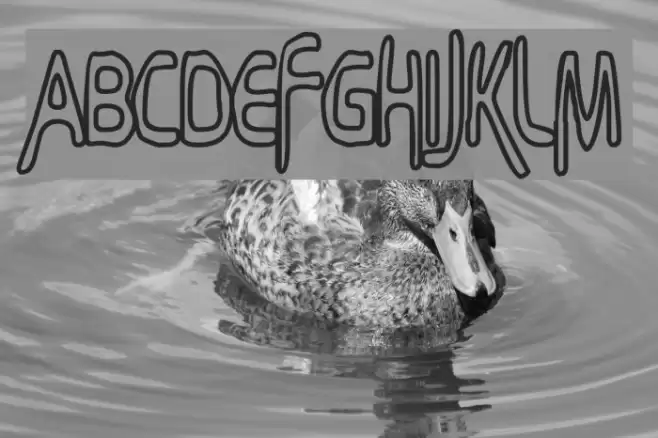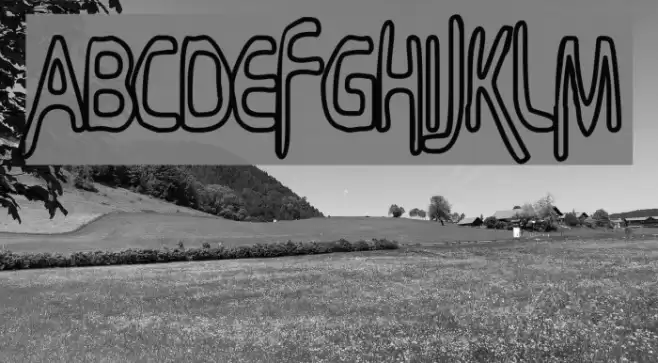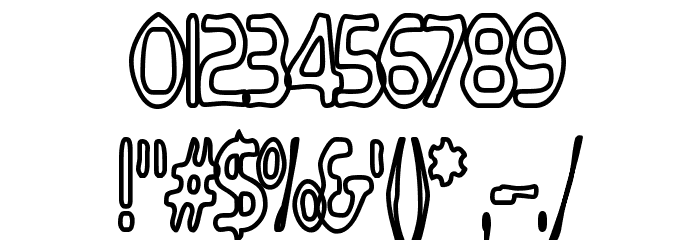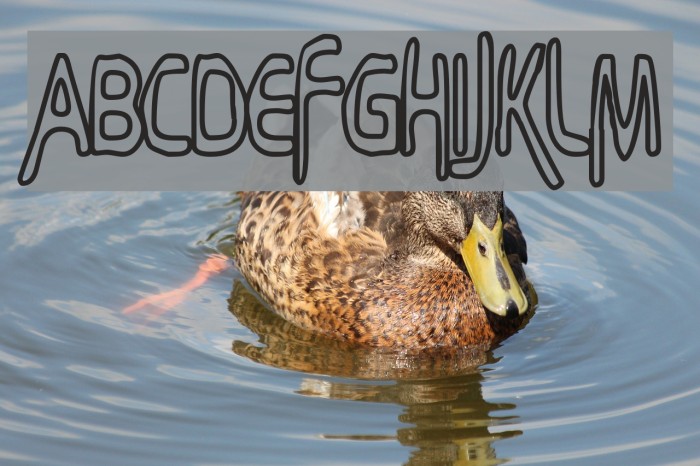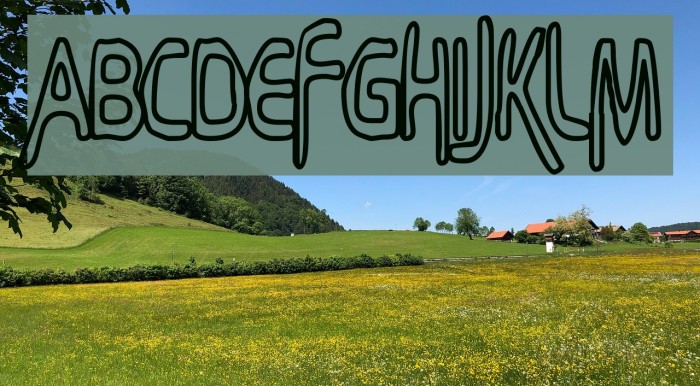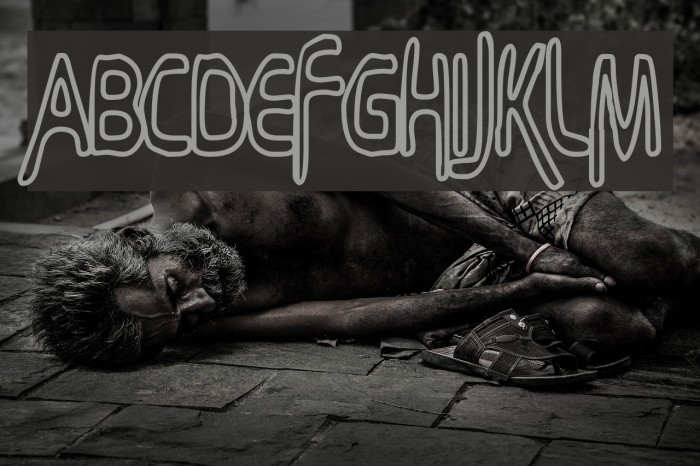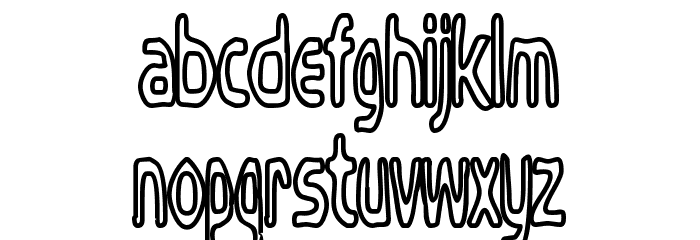
Bubbly Frog Hollow Font
Bubbly Frog Hollow Description
This playful and whimsical font features a hollow, bubbly design that gives it a unique and eye-catching appearance. The letters are rounded and have an outline style, creating a sense of fun and lightheartedness. The uppercase and lowercase letters maintain a consistent style, with smooth curves and a slightly irregular shape that adds to its charm. Numbers and special characters are designed to match the overall theme, making it versatile for various uses. The font's distinctive look makes it ideal for projects that require a touch of creativity and playfulness.
A playful, hollow, and bubbly font with rounded, outlined letters from Handwritten fonts.
- Proposed Projects: Ideal for children's books, playful branding, party invitations, and creative posters.
- Overall Style: Playful